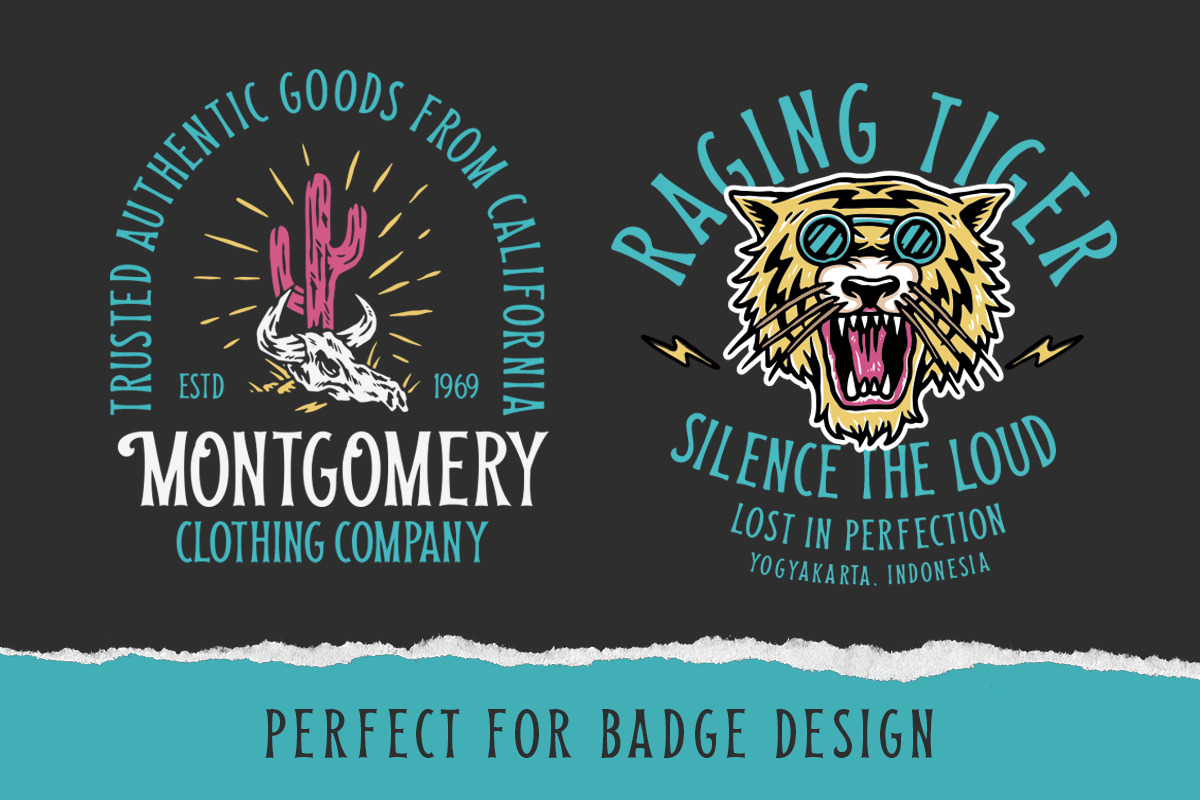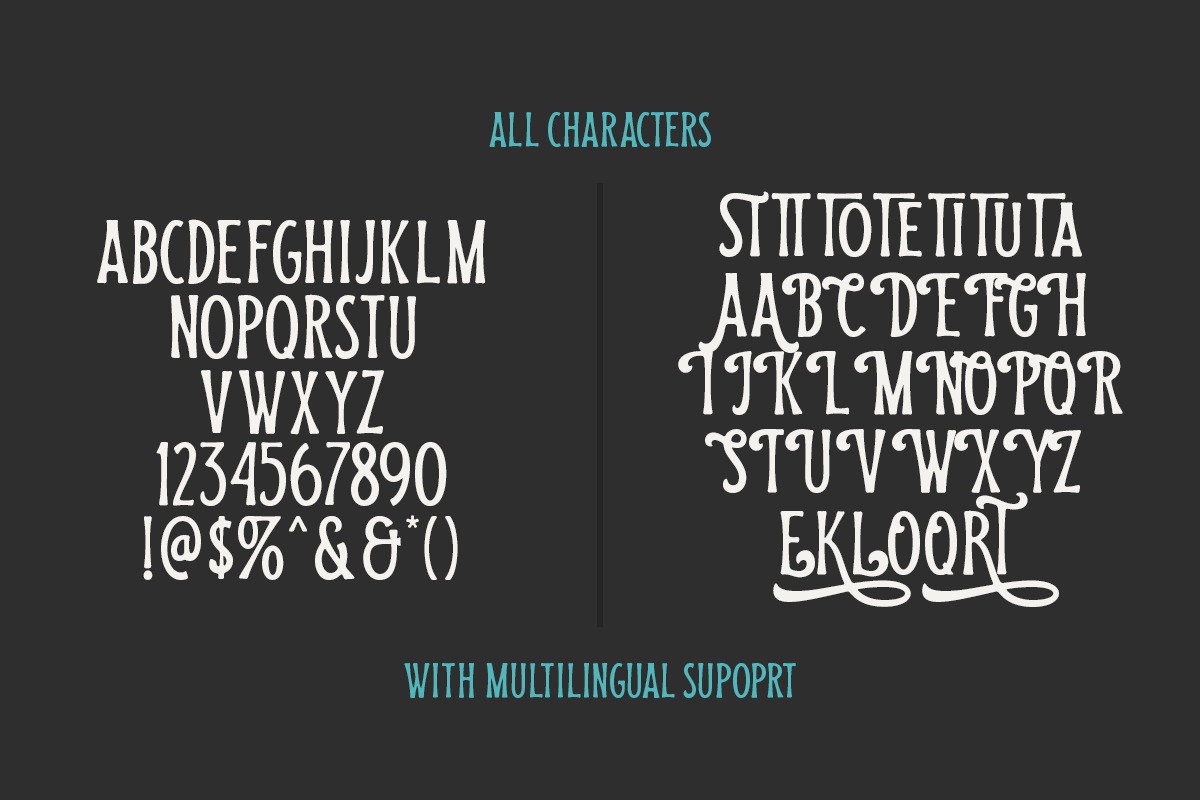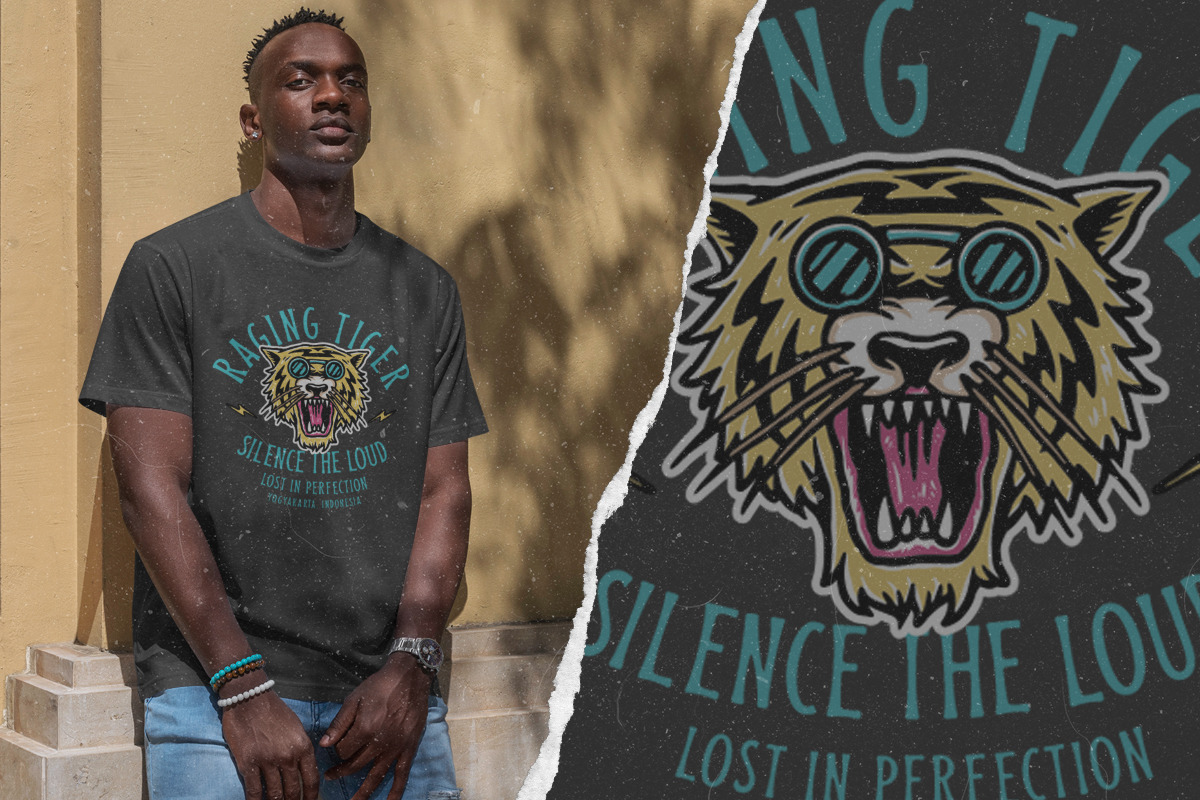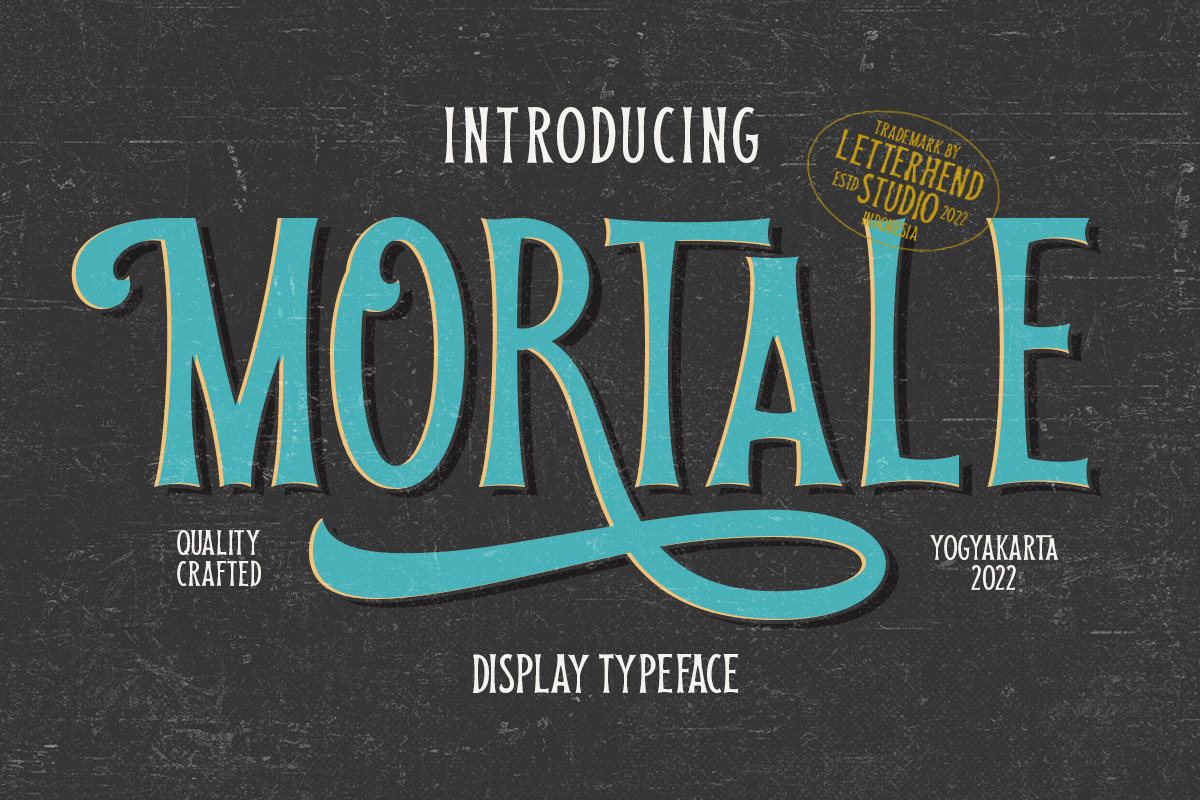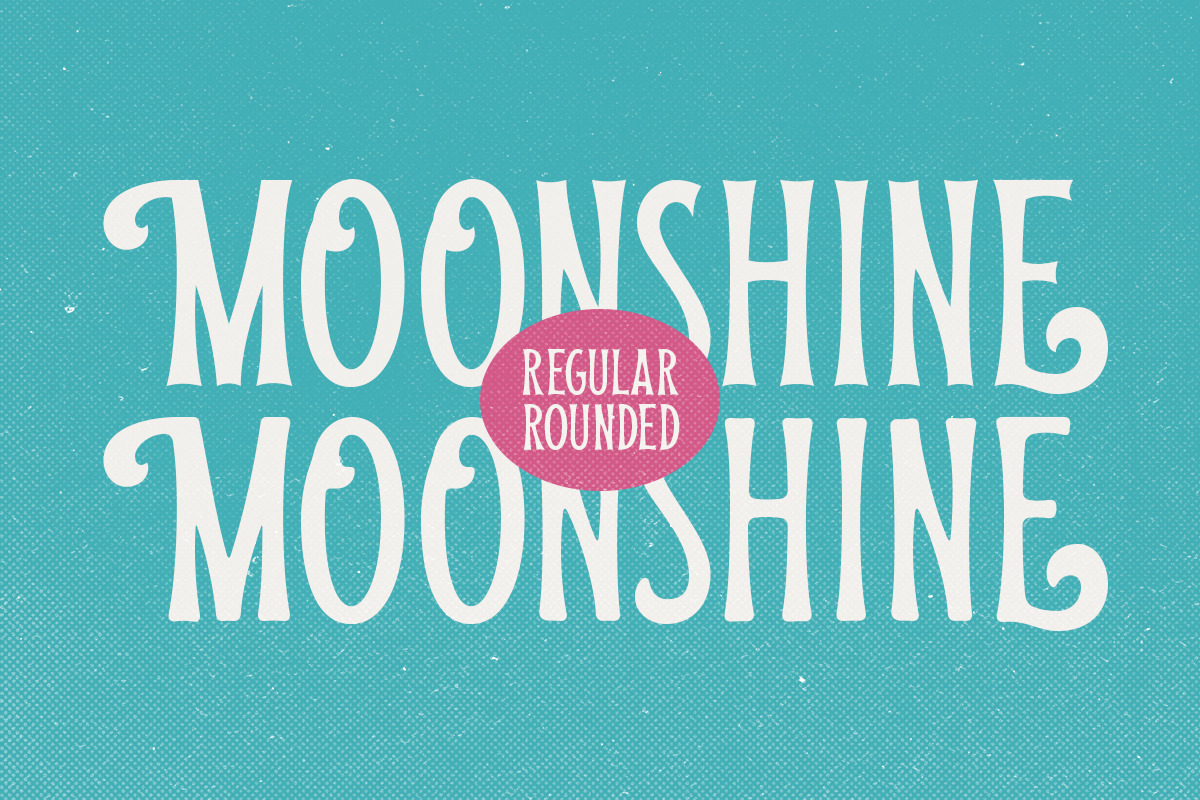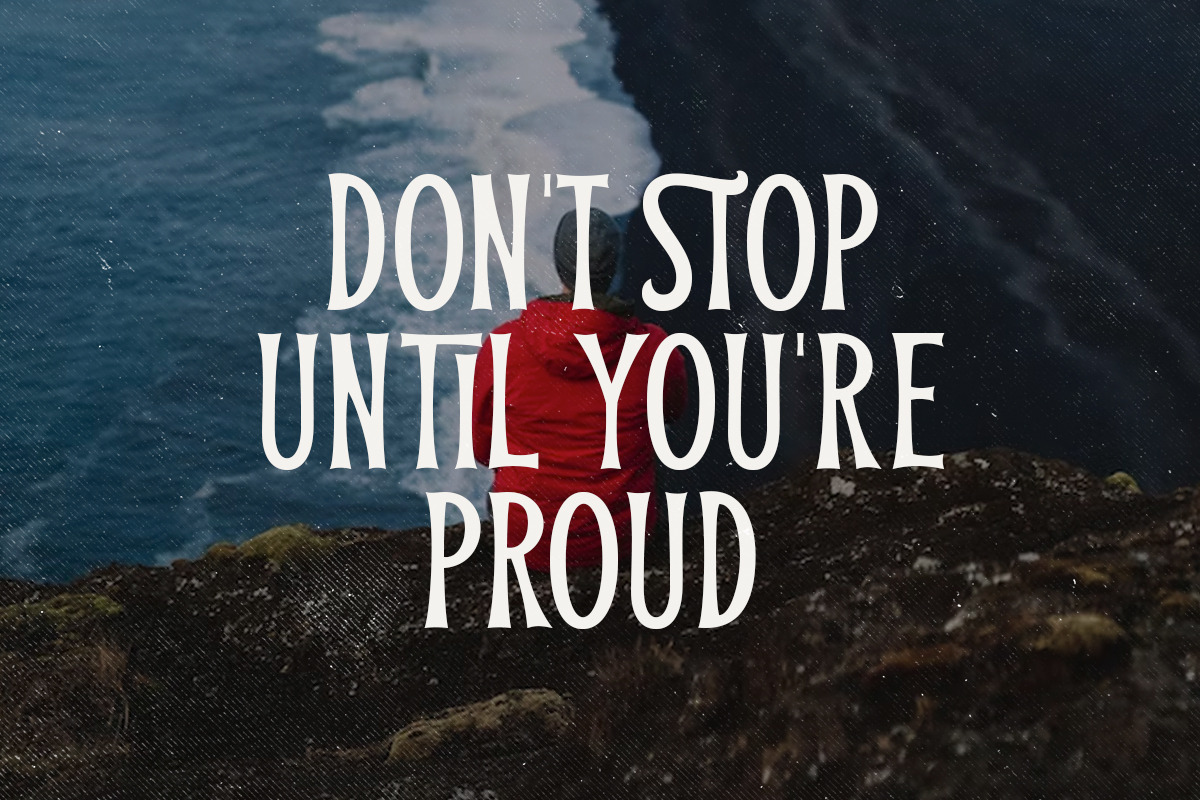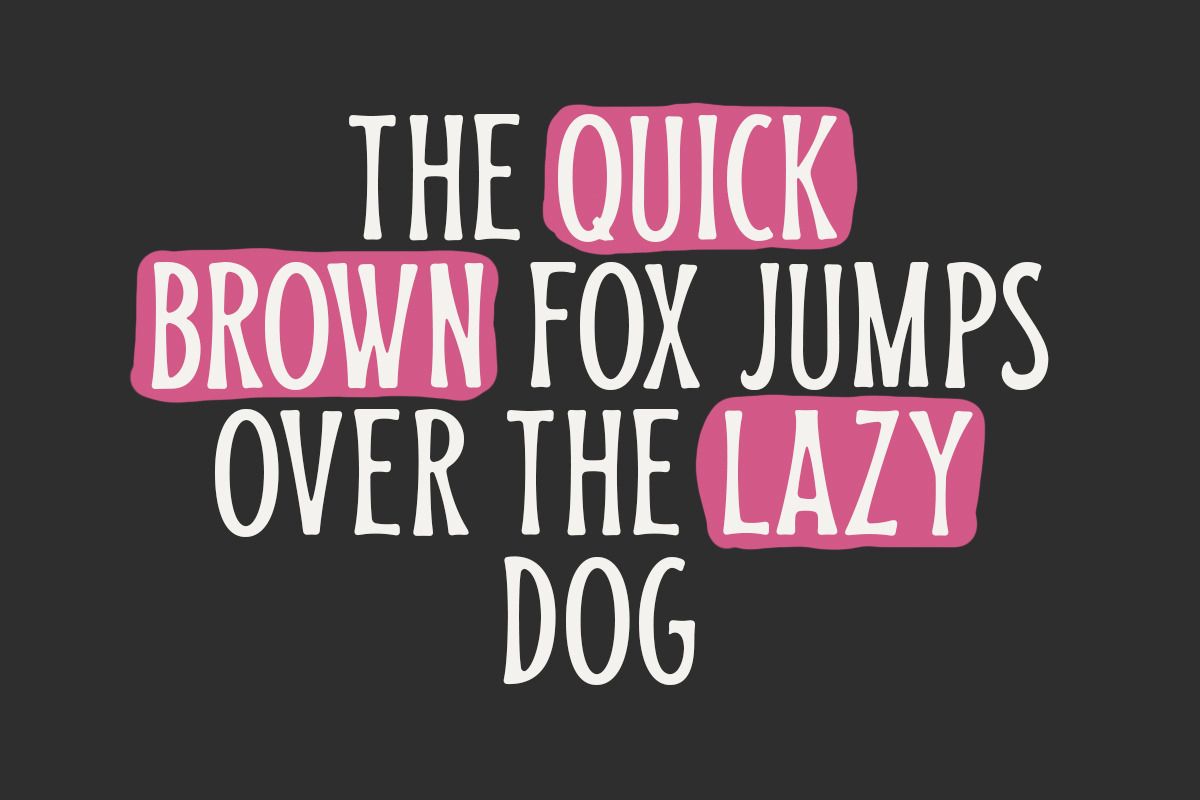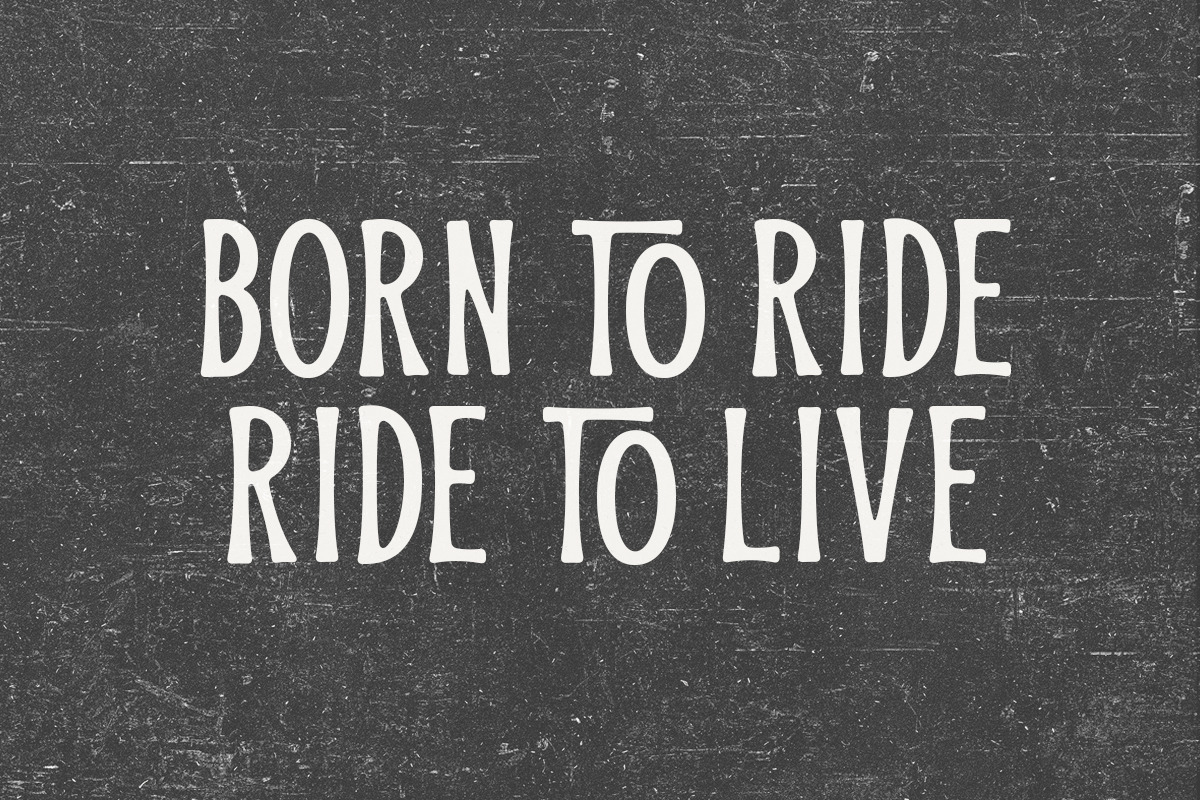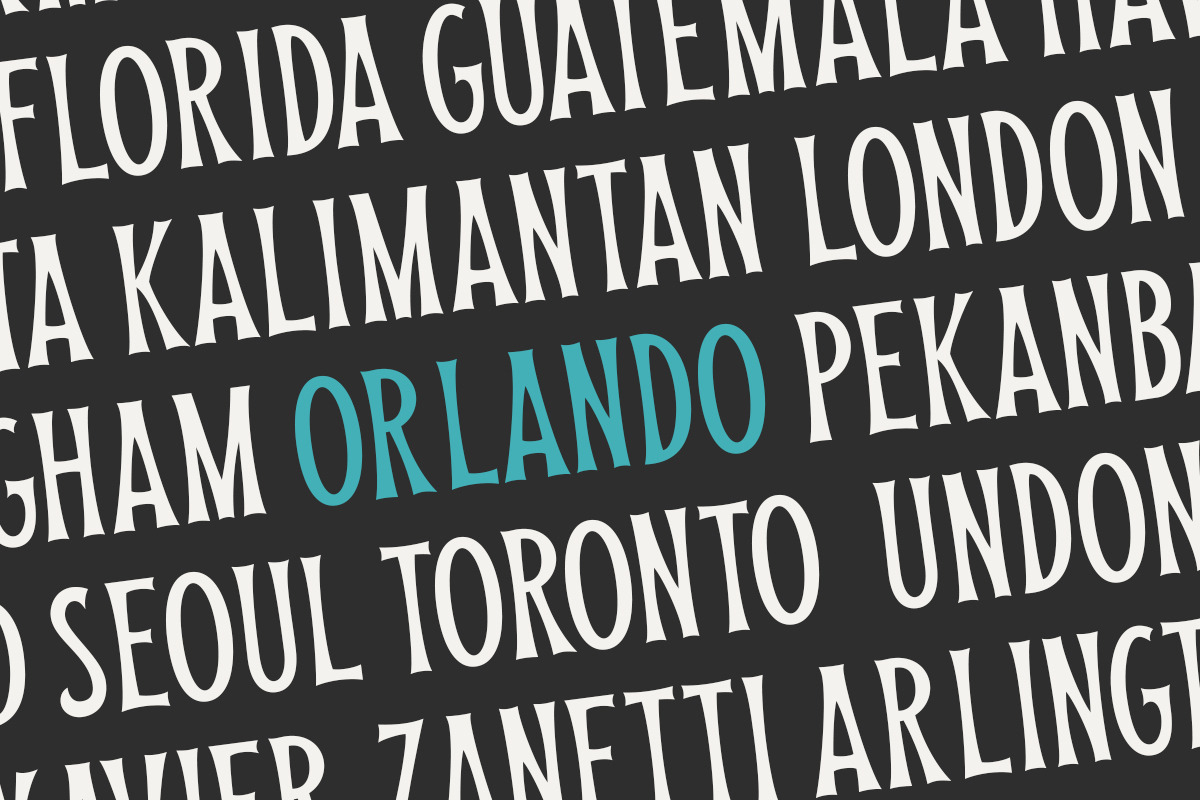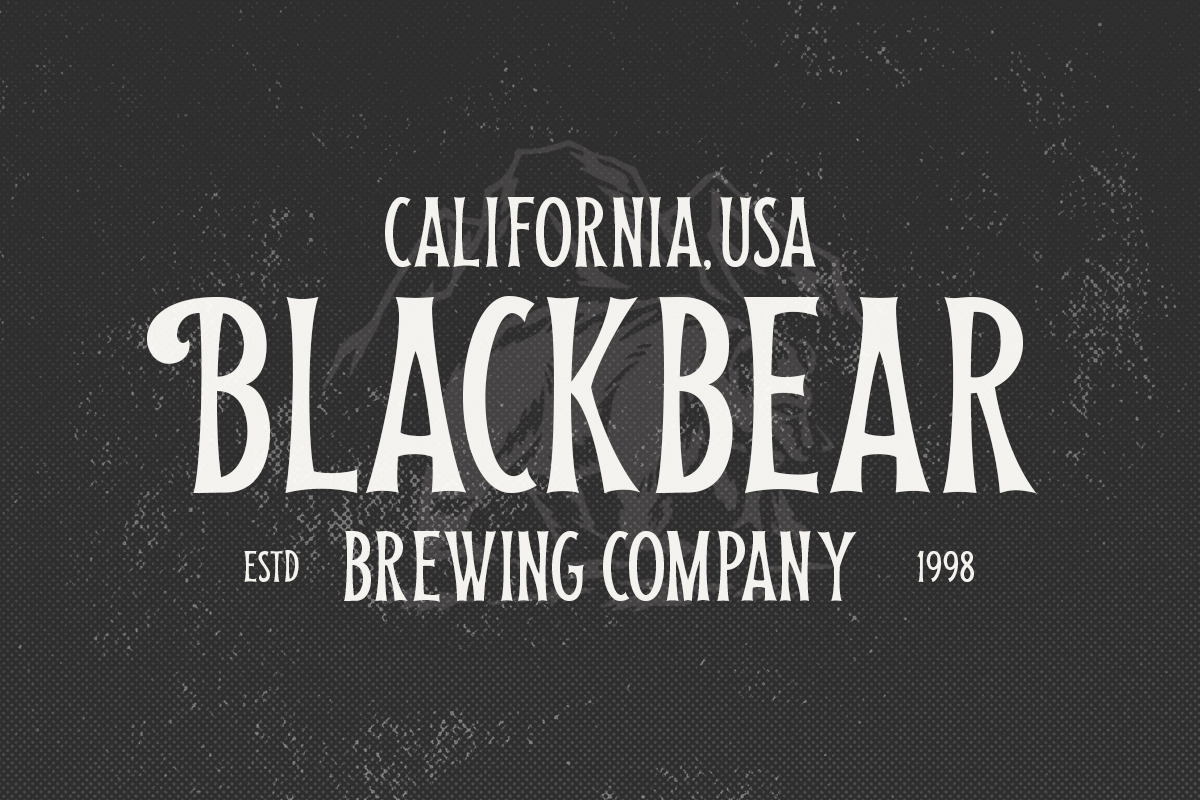
Mortale - Display Font
Mortale is a display font a typeface which is inspired by vintage lettering. Very suitable for for headline, logotype, apparel, invitation, branding, packaging, advertising etc with old school / vintage as well as modern theme. It comes in uppercase, lowercase, punctuations, symbols & numerals, stylistic set alternate, ligatures, etc also support multilingual and already PUA encoded.
- Alternate & Ligatures